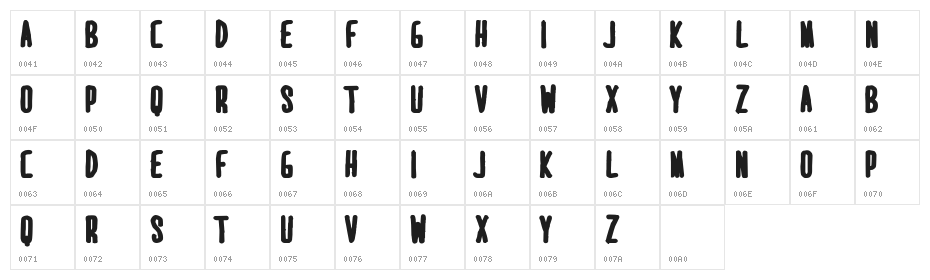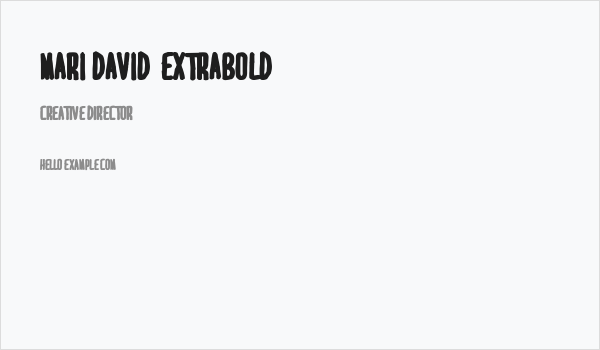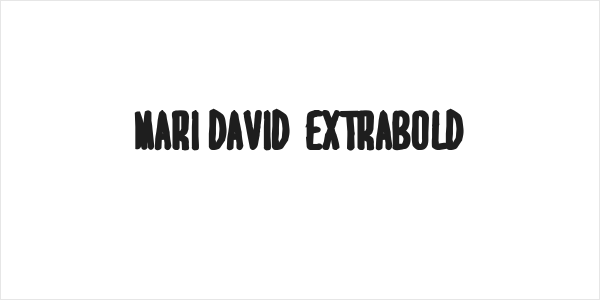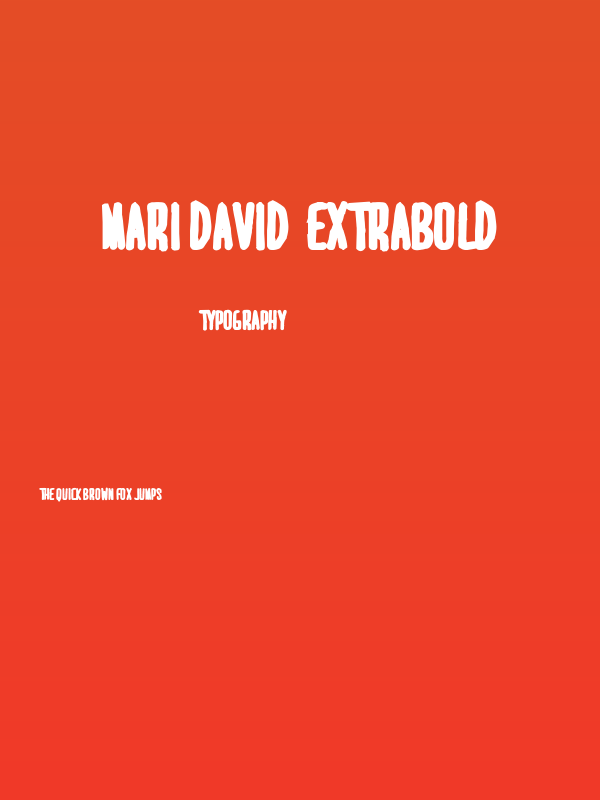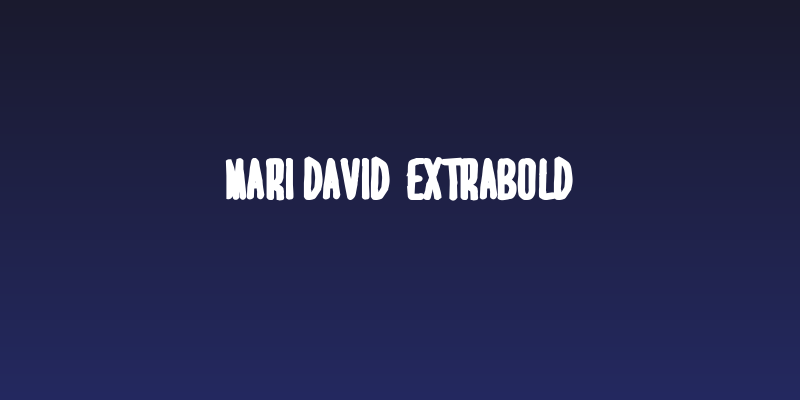
MARI&DAVID EXTRABOLD Font
MARI&DAVID EXTRABOLD Description
This font features bold, heavy strokes with a strong presence, making it ideal for impactful headlines and attention-grabbing designs. The characters are tightly spaced, contributing to its dense and robust appearance. The uppercase letters are uniform in height, with a slight curvature that adds a touch of softness to the otherwise solid and imposing structure. The font's style is reminiscent of vintage poster typography, offering a nostalgic yet modern feel. Its boldness and distinct character shapes make it suitable for various creative projects where a strong visual statement is required.
| Proposed Projects | Ideal for posters, logos, branding, and headlines that require a strong visual impact. |